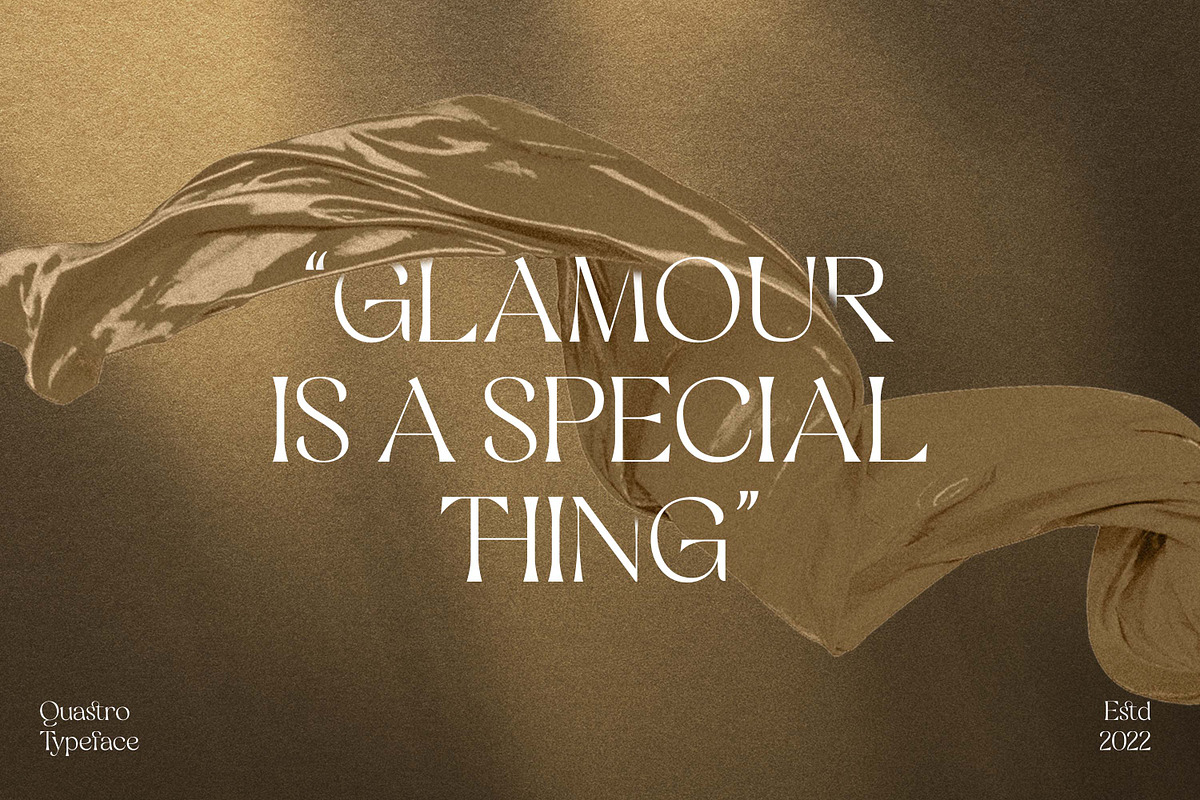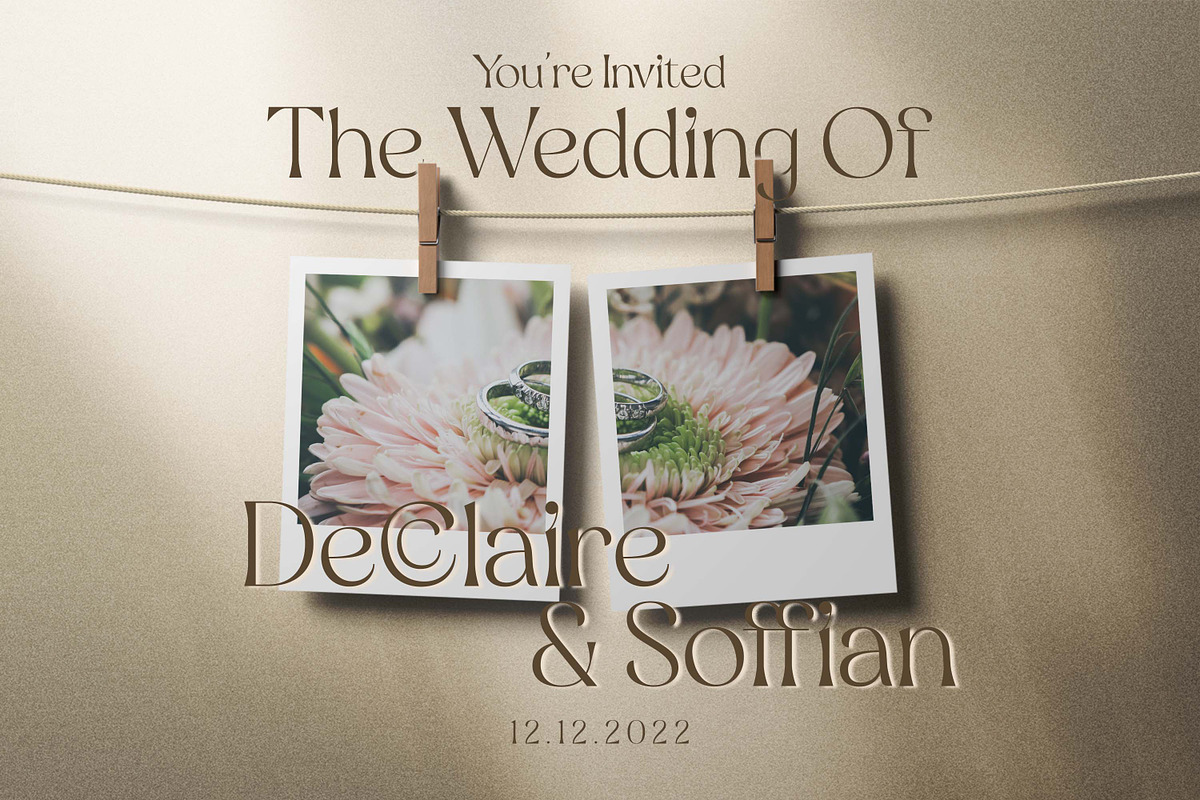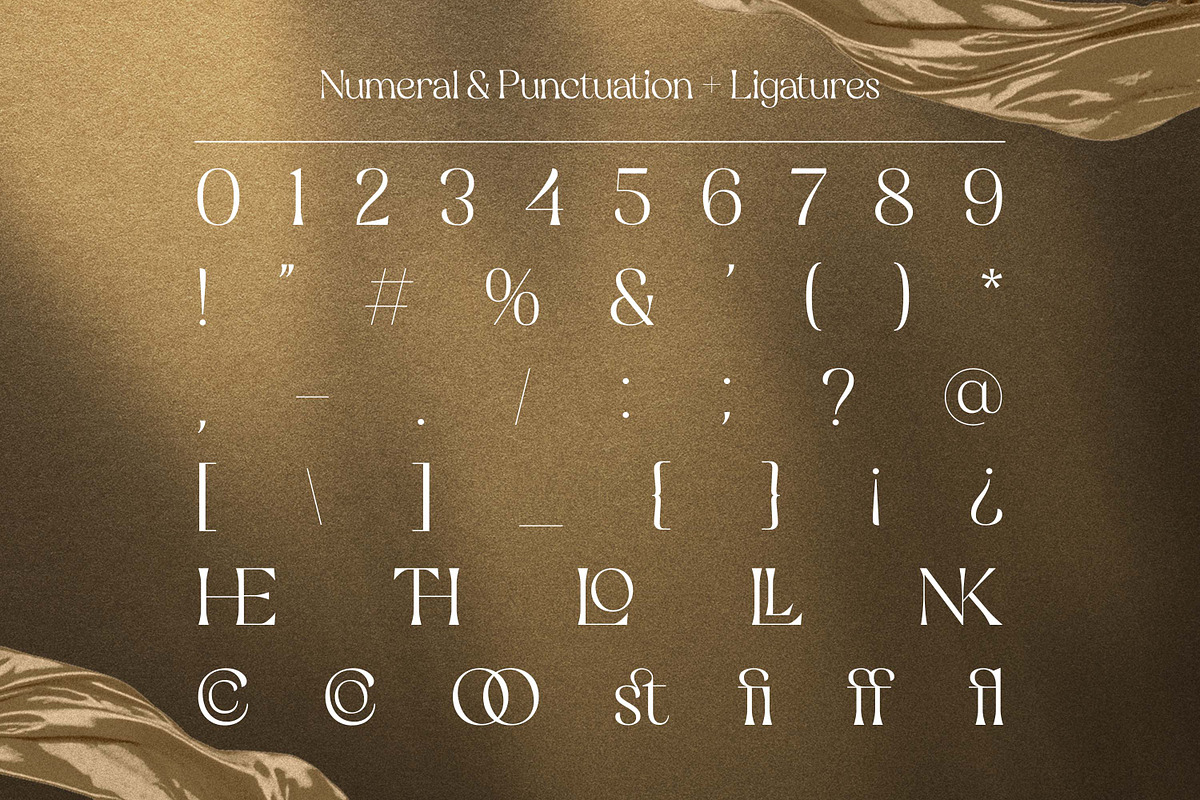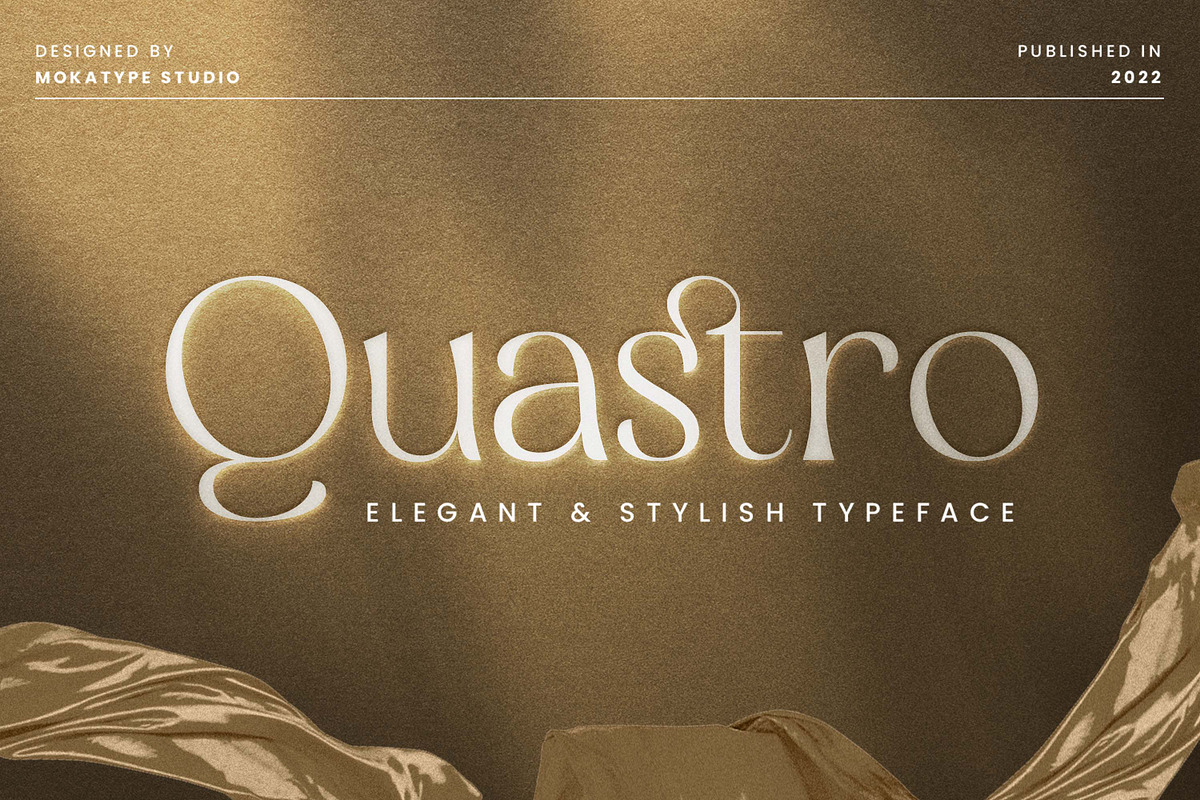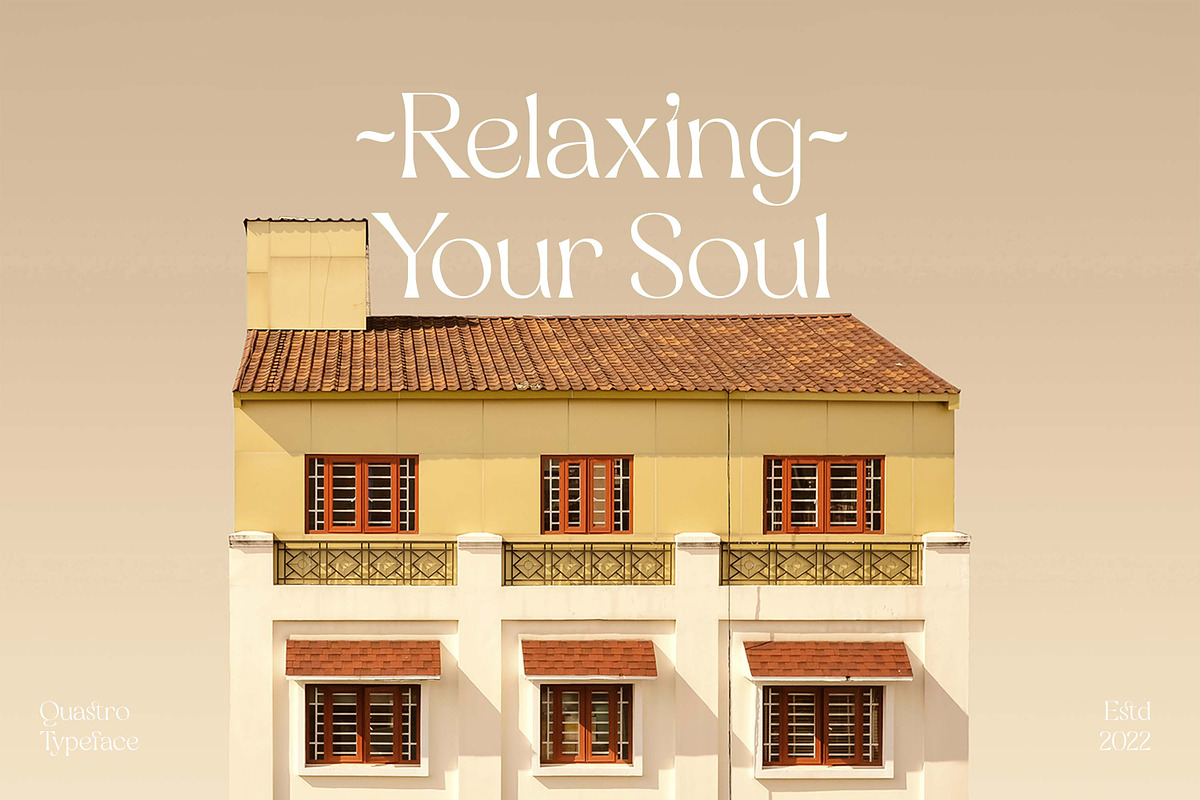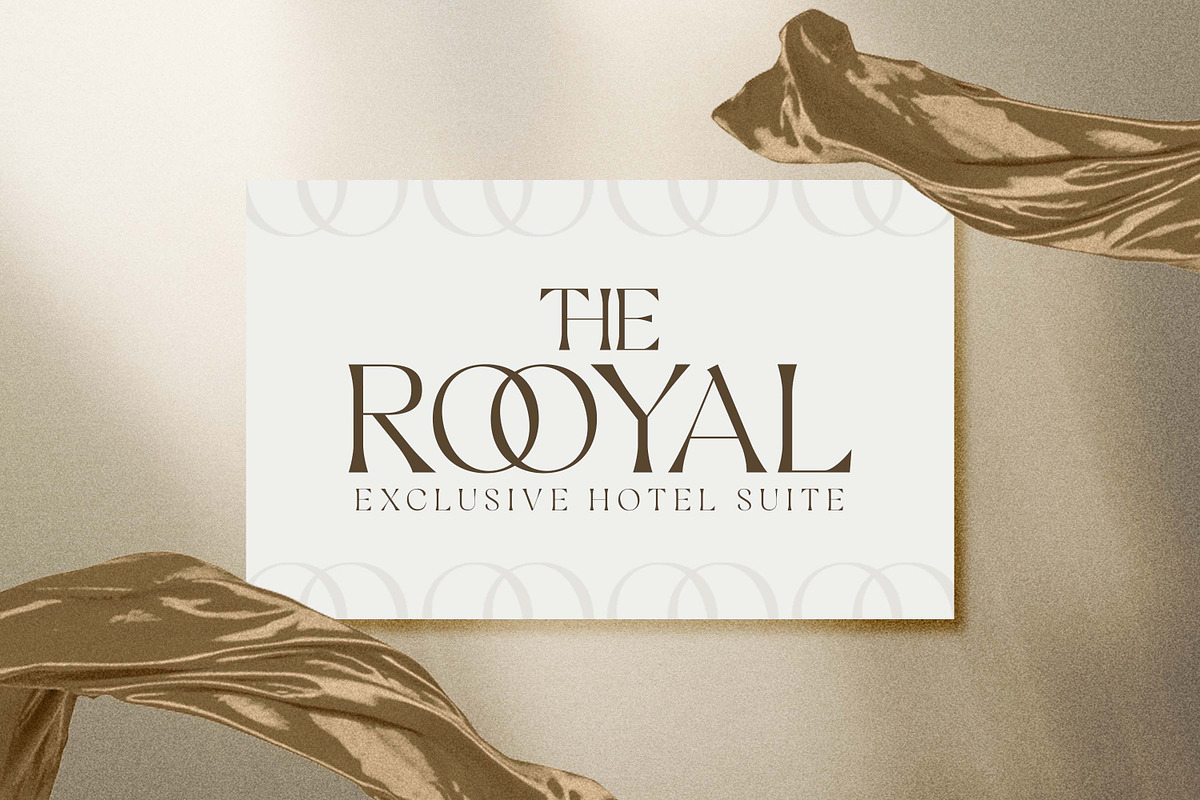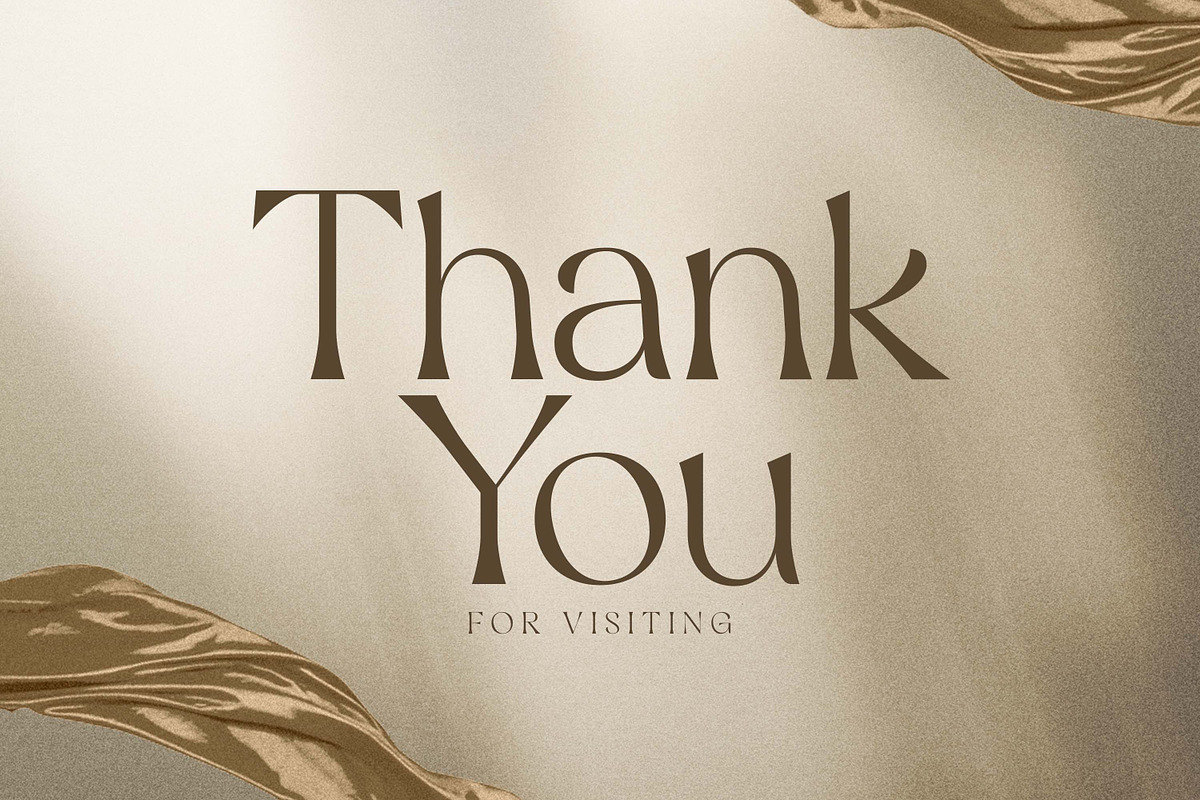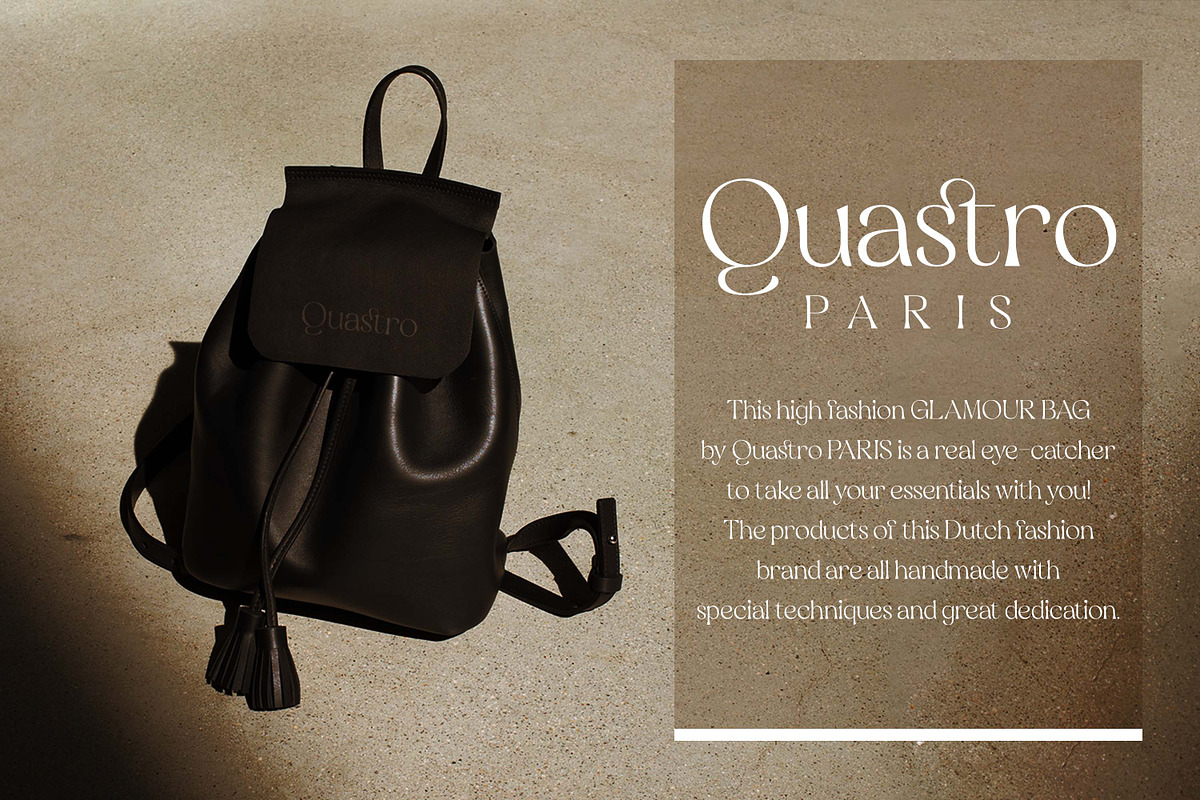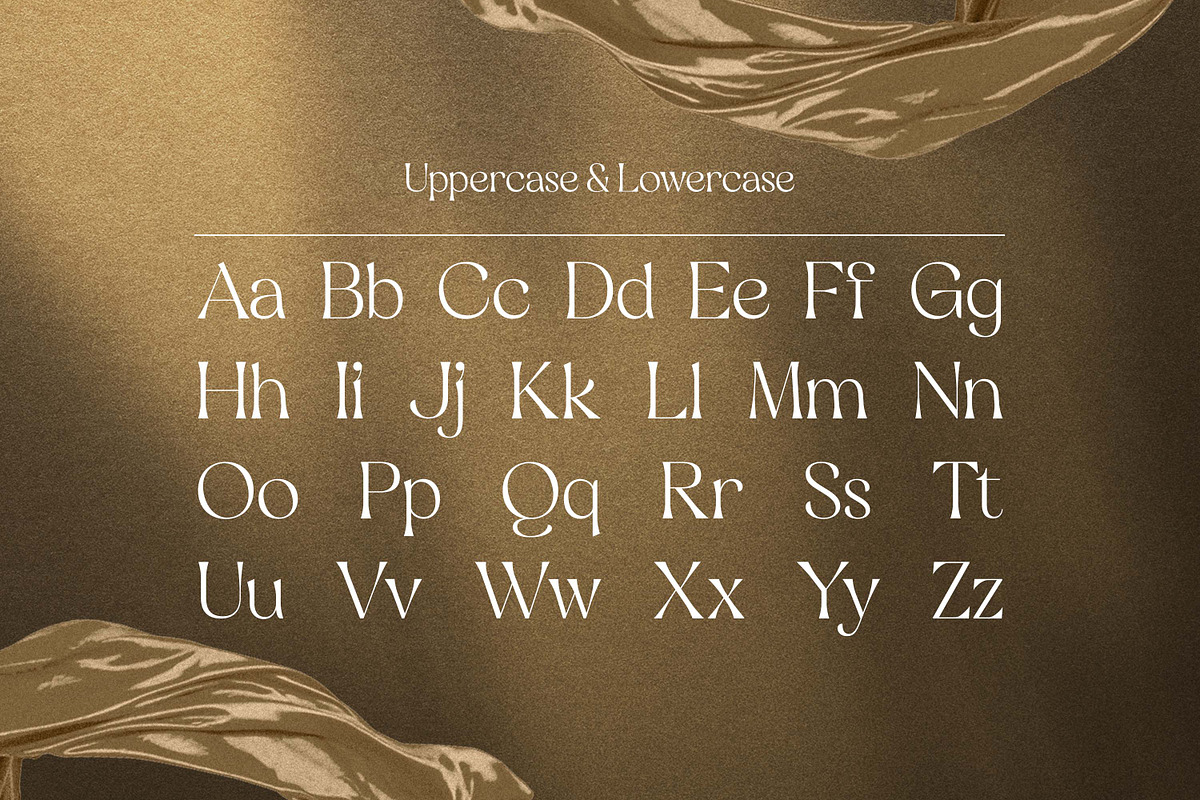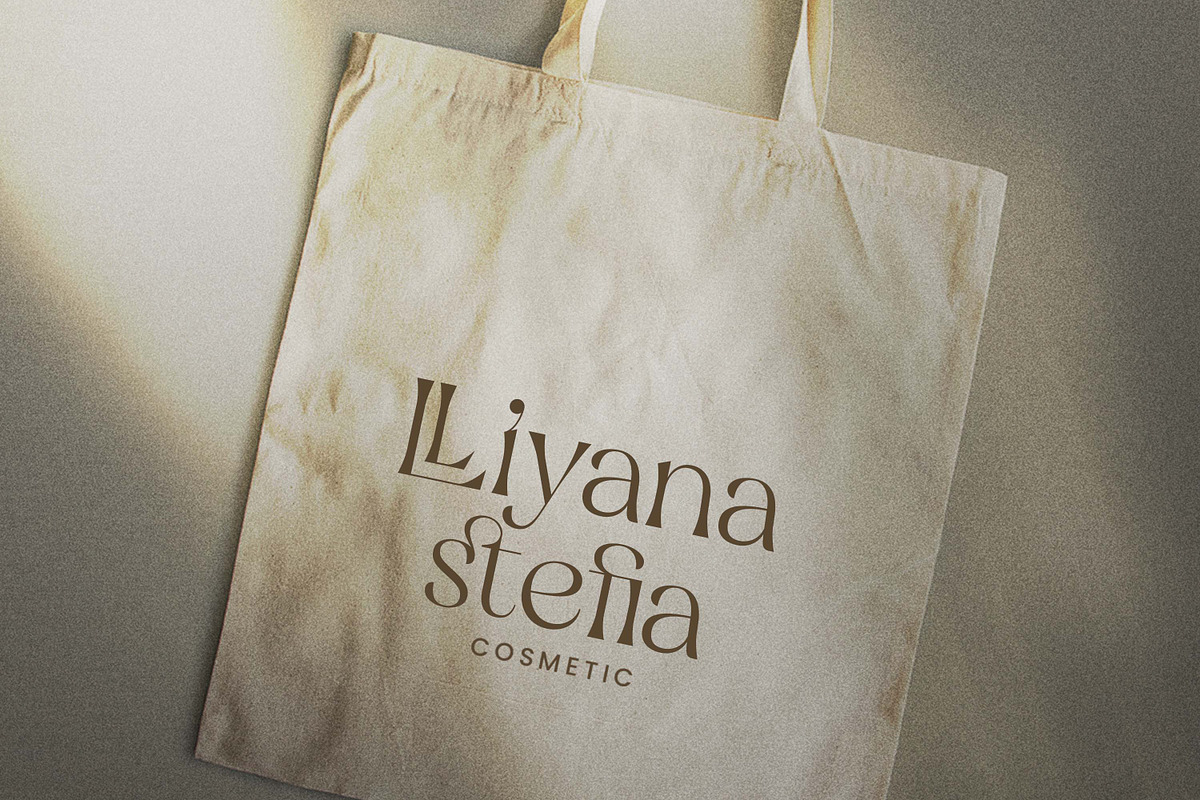
Quastro - Elegant & Stylish Display
Hello Introducing, Quastro - Elegant & Stylish Display Serif is an unique font that uses ligatures to smoothly link letters. Perfect for adding a unique twist to word-mark logos, monograms or pull quotes.Quastro has 12 ligatures can be turned off if required standard writing needs. What's Included :